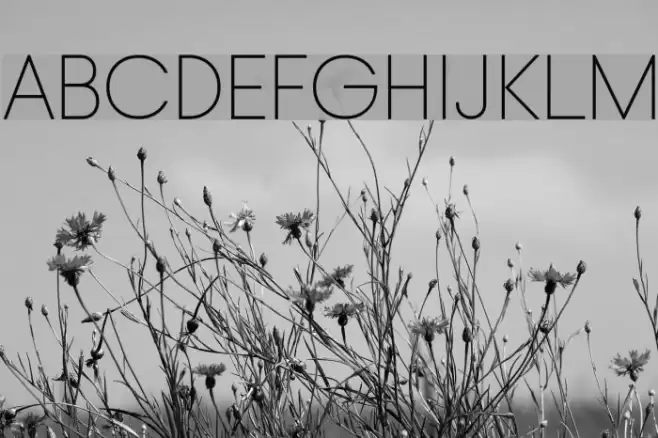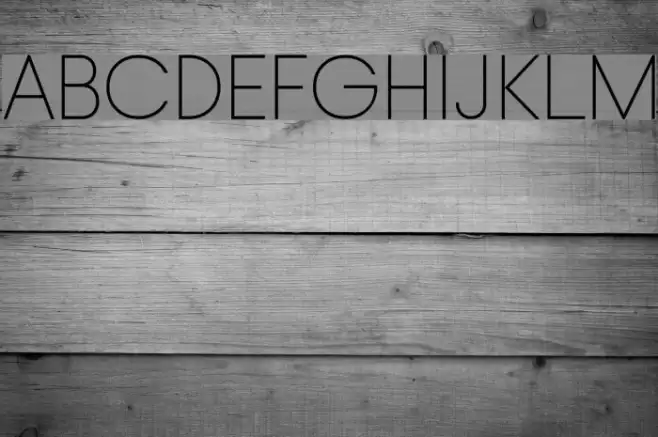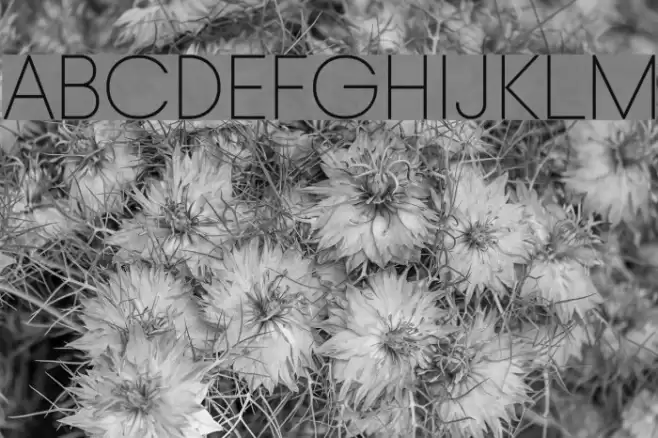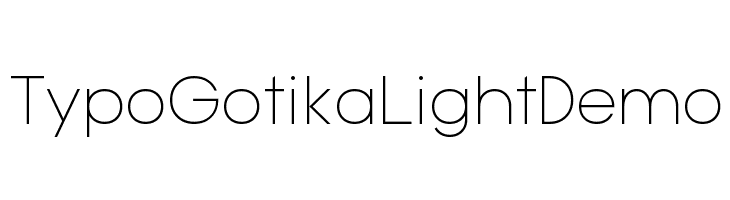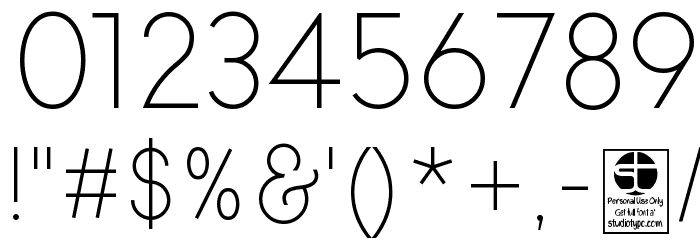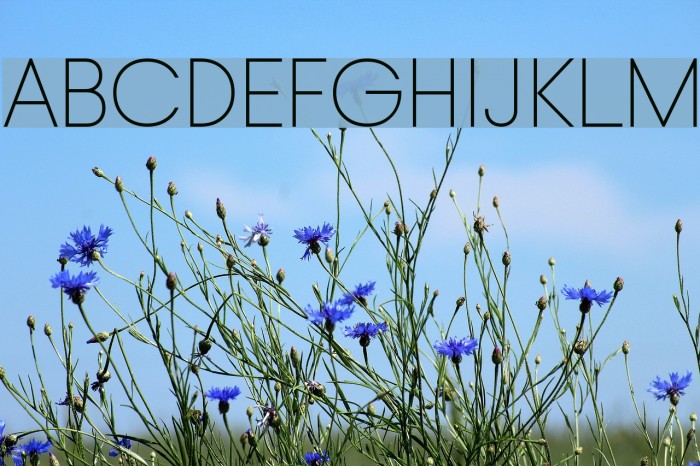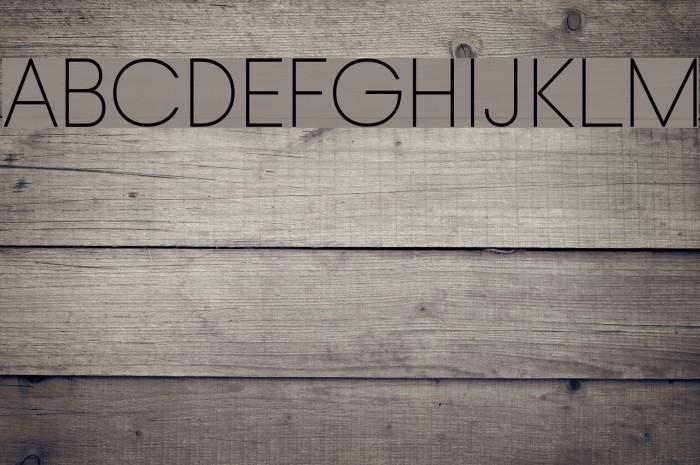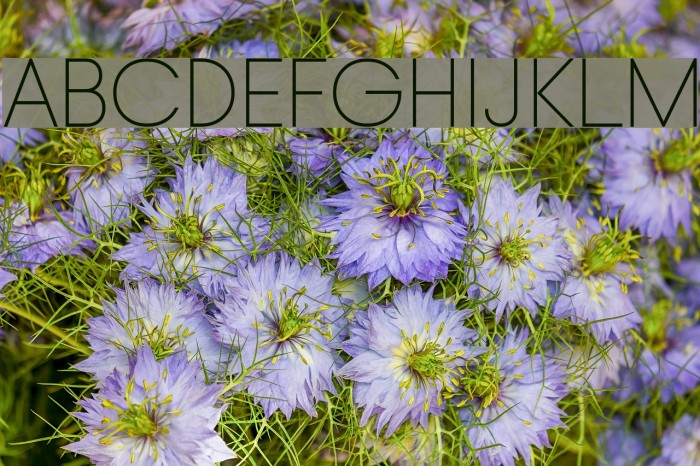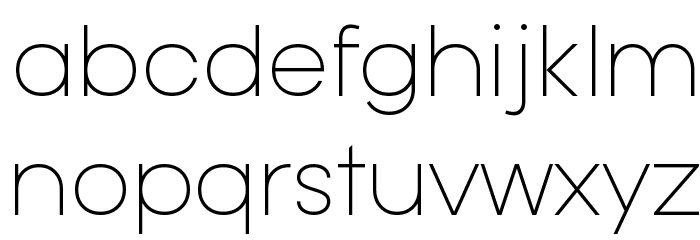
Typo Gotika Light Demo Font
Typo Gotika Light Demo Description
This font features a clean and modern design with a minimalist aesthetic. The characters are evenly spaced with a consistent stroke width, giving it a sleek and professional appearance. The uppercase and lowercase letters are well-proportioned, maintaining a harmonious balance throughout the alphabet. The numerals are clear and legible, making them suitable for various applications. Special characters are included, enhancing its versatility. The overall style is contemporary, making it ideal for projects that require a modern and sophisticated look.
A clean, modern font with a minimalist and professional design from Futuristic fonts.
- Proposed Projects: Ideal for branding, corporate materials, web design, and editorial layouts.